Choosing the top fonts for skincare packaging is essential for building a strong and attractive beauty brand. In the skincare industry, packaging is often the first thing customers notice. Therefore, typography plays a key role in creating a clean, elegant, and trustworthy impression.
A well-chosen font can communicate luxury, simplicity, and quality. On the other hand, poor typography can make even a high-quality product look unprofessional. Because of this, designers must carefully select fonts that match the brand identity.
In this article, we will explore the top fonts for skincare packaging and labels, their characteristics, and how to use them effectively.
Why Top Fonts for Skincare Packaging Matter
Understanding the top fonts for skincare packaging helps brands stand out in a competitive market. Skincare products are often displayed on shelves or online, where visual appeal is crucial.
Good typography can:
- Build brand trust
- Improve product readability
- Create a premium look
- Attract target customers
Moreover, typography influences how customers perceive the product’s quality. As a result, choosing the right font can increase purchase decisions.
Characteristics of Skincare Packaging Fonts
Before selecting fonts, it is important to understand their common characteristics.
1. Clean and Minimal Design
Skincare brands often use simple typography to reflect purity and clarity.
2. Elegant and Sophisticated Style
Thin strokes and balanced spacing create a luxurious feel.
3. High Readability
Labels must be easy to read, even in small sizes.
4. Soft and Feminine Touch
Many skincare fonts use smooth curves to create a gentle and calming impression.
Top Fonts for Skincare Packaging and Labels
Here are some of the top fonts for skincare packaging that can elevate your design.
Gavoline
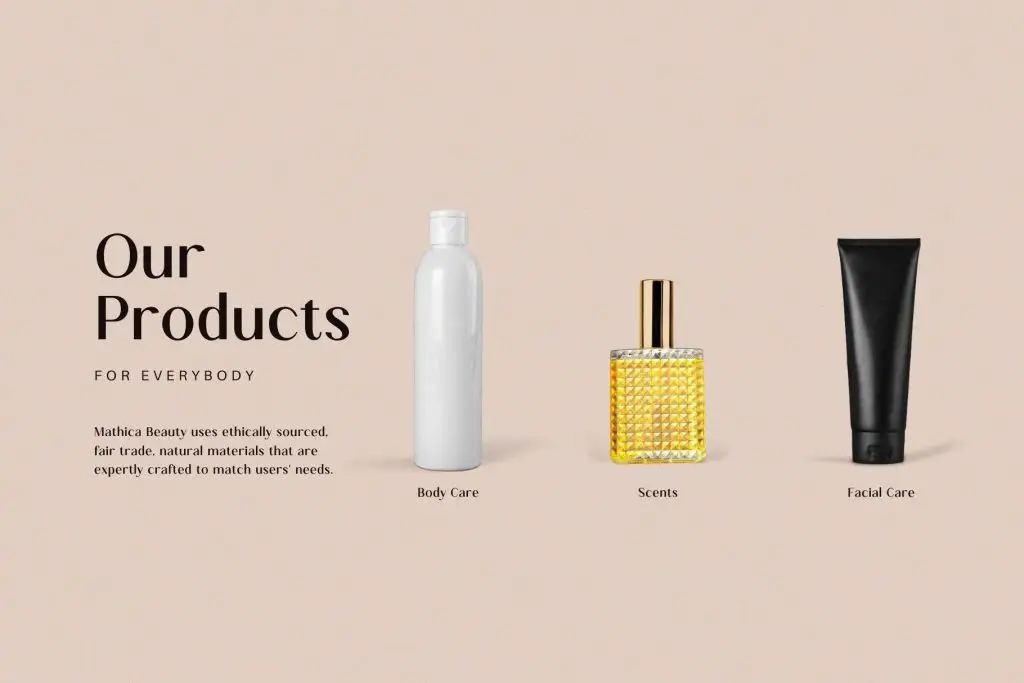
Gavoline is a modern and bold sans typeface that will capture your heart with its incredibly versatile style.
Best for:
- Product labels
- Packaging design
- Elegant skincare brands
Let Gavoline be your go-to choice for adding a touch of sophistication and boldness to your creative projects.
Saquero
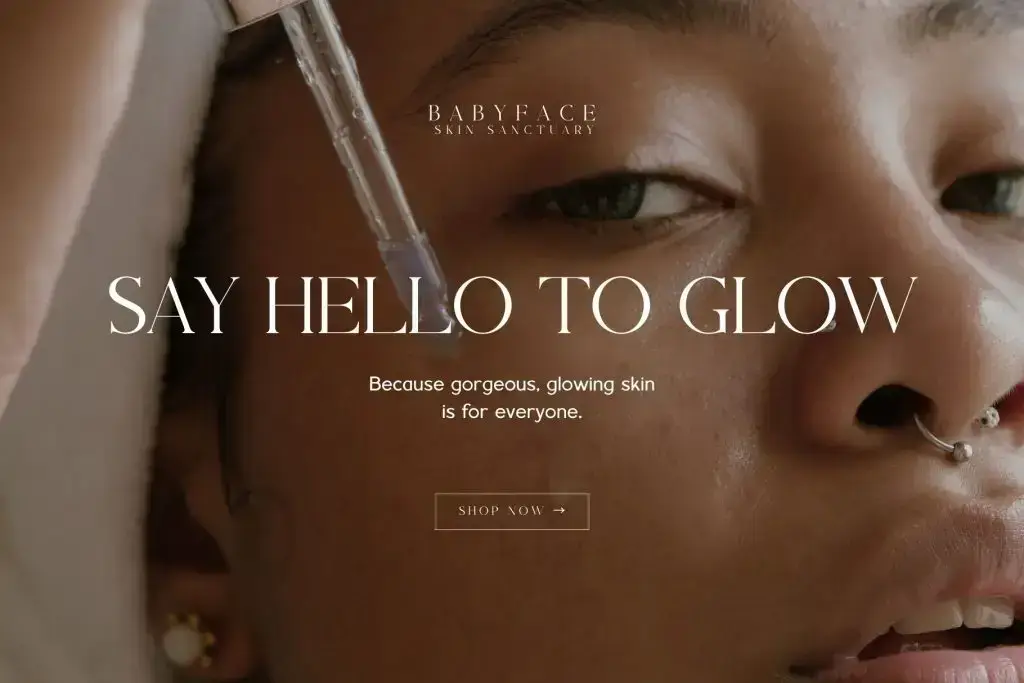
Saquero is a modern serif font that combines contemporary style with timeless elegance.
Best for:
- Digital branding
- Clean skincare brands
- Modern aesthetics packaging
Each letter is carefully crafted to ensure precision, readability, and a polished, professional finish.
Schindler
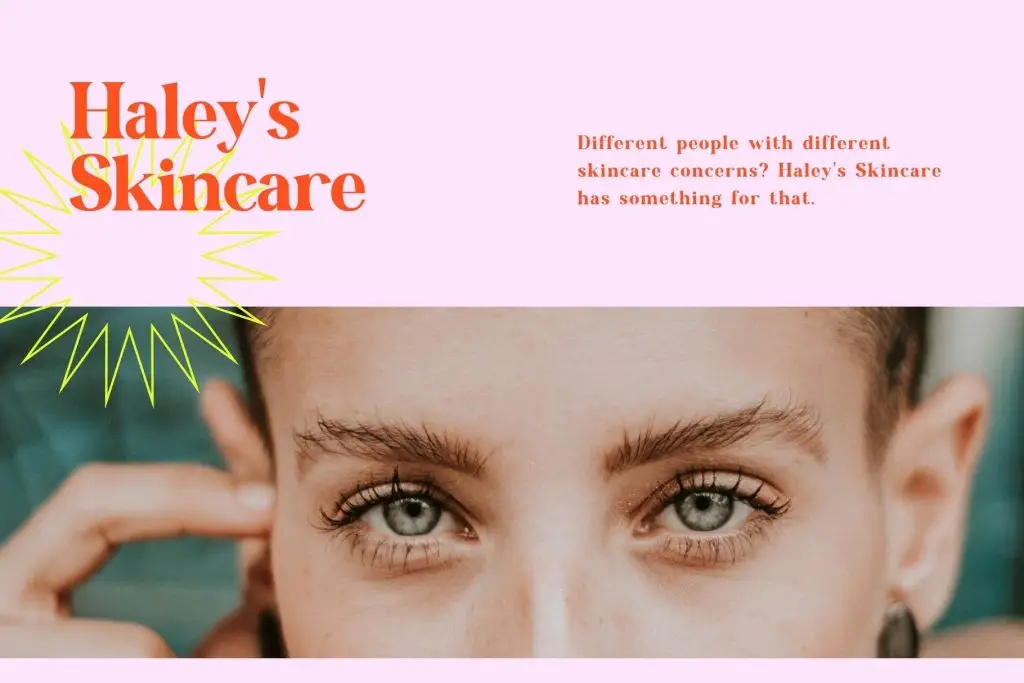
Schindler is a modern serif font featuring elegant and meticulously crafted letters.
Best for:
- Skincare branding
- Versatile applications
- Premium product labels
Schindler’s clean and refined letterforms ensure your designs communicate sophistication while maintaining readability and visual appeal.
Yasmen
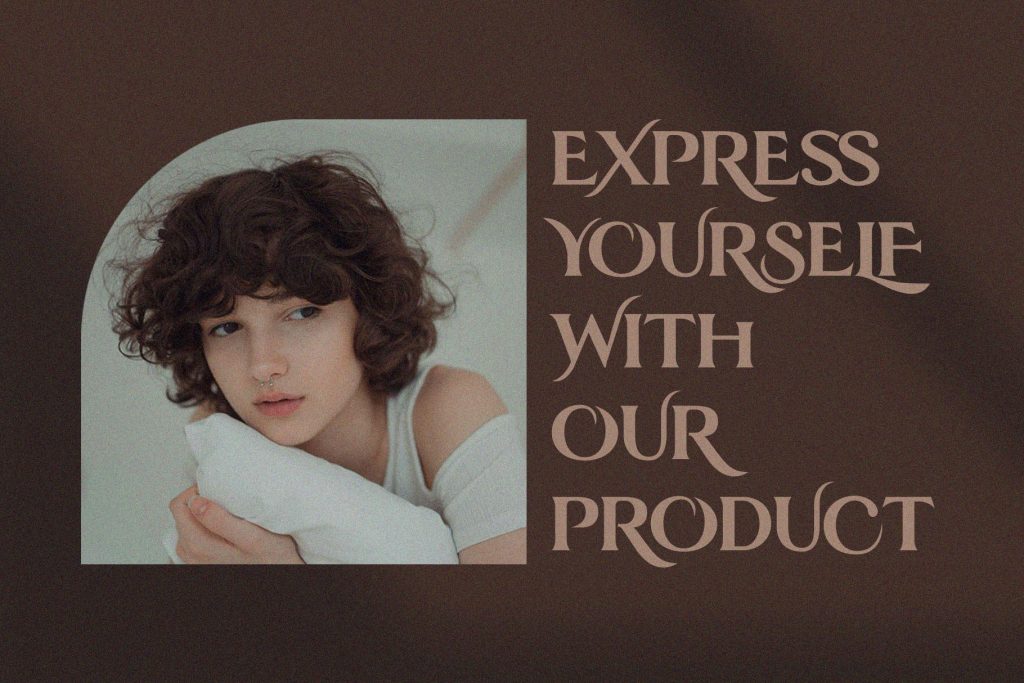
Yasmen is a modern ligature serif font with beautiful characters.
Best for:
- Highlight text
- Advertising campaigns
- Luxury branding projects
Yasmen elevates your designs with its refined aesthetic.
Gillty
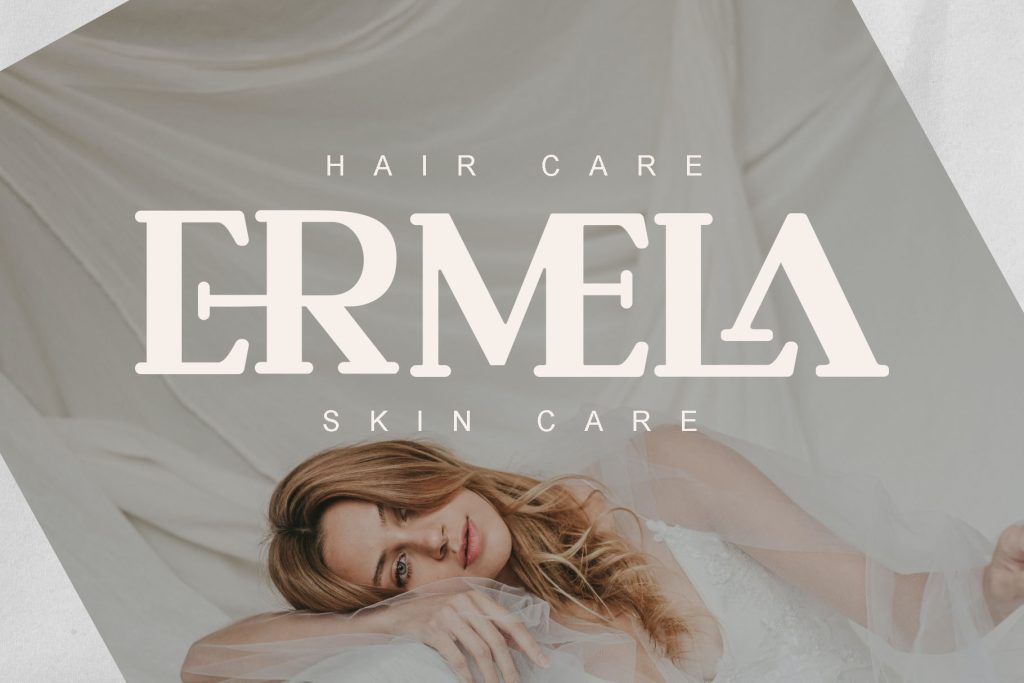
Gillty is a clean and modern serif font designed for clarity and elegance.
Best for:
- Classy designs
- Elegant Creations
- Branding elements
Gillty adds a touch of elegance and clarity to your work.
How to Use Fonts Effectively in Skincare Packaging
Using the top fonts for skincare packaging effectively requires a strategy.
1. Combine Fonts Carefully
Use 2–3 fonts:
- Serif or script → Brand name
- Sans-serif → Product description
This creates balance.
2. Use Proper Spacing
Spacing improves clarity and makes packaging look more premium.
3. Maintain Consistency
Use the same typography across:
- Packaging
- Website
- Social media
Consistency strengthens brand identity.
4. Use Color and Contrast
Typography should stand out while matching the brand palette.
How Typography Influences Skincare Branding
Typography plays a major role in branding.
For example:
- Elegant fonts → Luxury perception
- Clean fonts → Natural and organic feel
- Bold fonts → Modern and trendy style
As a result, typography helps communicate brand values instantly.
Conclusion
Choosing the top fonts for skincare packaging is essential for creating attractive and effective product designs. Fonts like Gavoline, Saquero, Schindler, Yasmen, and Gillty offer a variety of styles that can match different brand identities.
Moreover, by combining fonts thoughtfully and focusing on readability, designers can create packaging that looks professional and appealing. Typography is not just about text; it is a key element in building trust and attracting customers.